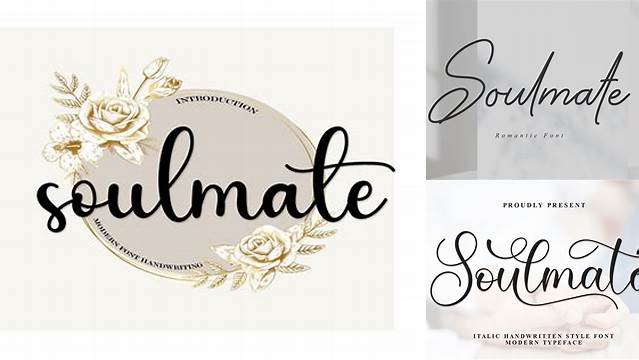
Find Your Soulmate Font: Copy & Paste Magic!
Hey everyone! Ever wished you could express your feelings about your soulmate in a way that's totally unique and eye-catching? Well, you're in luck! This article is all about finding the perfect font to represent your soulmate, and how easy it is to copy and paste those fonts wherever you need them. We'll dive into a bunch of cool font styles, show you how to snag them, and give you some fun ideas on how to use them. Let's get started on this font-tastic journey! We'll be exploring how to find fonts for soulmate using copy and paste, so get ready to make your messages extra special.
H2: Discovering Soulmate Fonts: A World of Typography
Alright, guys, let's get down to the nitty-gritty: finding the perfect font to represent your soulmate. It's not just about picking any old font; it's about finding one that captures the essence of your connection, your love, and your unique bond. Think about it: your soulmate is one of a kind, right? So your font should be too! We're talking about fonts that speak volumes, fonts that whisper sweet nothings, and fonts that shout out your love from the rooftops. There's a whole world of typography out there, and the possibilities are endless. You can find fonts that are romantic, playful, serious, or even a little bit quirky – whatever best reflects your relationship. We'll explore different font categories, from elegant scripts that evoke classic romance to bold, modern fonts that scream contemporary love. We'll also look at fonts that are a bit more whimsical and fun, because, let's face it, love should be fun too! The key is to find a font that resonates with you and your partner. When you see it, you'll know it's the one! It's like finding your soulmate all over again, but this time it's in the world of typography. We will give you a glimpse of some popular fonts that you can use right away.
This includes fonts such as script fonts that are cursive and flowery, reminiscent of a handwritten letter. They're perfect for adding a touch of romance and elegance to any message. Then there are serif fonts, which are classic and timeless, and they look sophisticated and dependable. These are perfect for creating a sense of tradition and trust. We then have sans-serif fonts that are modern and clean, and great for creating a contemporary look. If your relationship is more modern, this is what you may need. Finally, there are display fonts, designed to grab attention. These fonts are often used for headings and titles and offer a variety of styles from cute to dramatic. So, as you can see, there's a font for every kind of soulmate connection. Let's start looking for yours!
H2: Soulmate Fonts for Social Media: Make Your Posts Pop
Alright, let's talk social media! Social media is a fantastic platform to share your love with your soulmate, and what better way to do it than with a unique font? Let’s be honest, everyone is looking for a way to stand out from the crowd. And using the perfect font can do exactly that! Instagram, Facebook, Twitter – you name it, the power of a well-chosen font is undeniable. Imagine posting a sweet message to your significant other and seeing it in a cool, stylized font. How unique is that! It’s not only about looking good; it's also about expressing your love. You can use unique fonts to create eye-catching captions, bios, and even personalized stories. Think about it: you can use a romantic script font for a heartfelt anniversary post, a playful font for a funny inside joke, or a bold font for a passionate declaration of love. The possibilities are endless! But here is the best part: it's easy to copy and paste your selected font to your social media posts. It adds a personal touch that standard fonts just can't match. To make it even better, you can also use different font styles to emphasize certain words or phrases in your message. Bold the words that mean the most, or use italics to add a touch of flair. You can also change colors to further elevate your post. To do so, copy the stylized text generated from your tool and paste it directly into your post. That’s all it takes! Then sit back and watch the love and likes roll in!
H2: Romantic Font Pairings for Soulmate Messages
Let’s move on, guys, to the magic of pairing fonts! Choosing the right font can elevate your soulmate messages to a whole new level. It's like picking the perfect outfit for a date – you want something that complements each other and makes a statement. Now, when it comes to romantic messages, the art of font pairing is all about balance and harmony. You want to find fonts that work together, complementing each other and enhancing the overall aesthetic. One of the most popular and effective pairings is a script font with a sans-serif font. The script font brings a touch of elegance and romance, while the sans-serif font offers a clean and modern contrast. It's like the yin and yang of typography. For example, you can pair a beautiful, flowing script font for your soulmate's name with a clean, simple sans-serif font for the rest of your message. Or, you could try pairing a bold, playful font with a more subtle, elegant font. The key is to experiment and see what looks best. Remember, the goal is to create a cohesive and visually appealing message that captures the essence of your love. The best way to find the perfect pairing is to try different combinations and see how they look together. There are lots of websites and tools that offer font pairing suggestions, so you don't have to start from scratch. So, go ahead and start exploring! Your soulmate deserves a perfectly crafted message, so start by finding the perfect font pairing.
H2: Creative Uses of Soulmate Fonts Beyond Texting
Alright, guys, let's think outside the box. While using special fonts to text your soulmate is great, you can actually use them in so many more creative ways! When it comes to expressing your love, the possibilities are endless. Think about it, you can get creative with cards, gifts, and even DIY projects! How about creating personalized greeting cards for anniversaries, birthdays, or just because? You can use a beautiful script font to write heartfelt messages or quotes. The same goes for gift tags. Imagine how special a gift becomes when the tag is written in a unique font that reflects your relationship. You can also create artwork! You can design custom wall art, posters, or even digital graphics featuring your favorite quotes, names, or dates. The font you use will add a unique, personal touch that makes it truly special. If you like DIY projects, consider using your chosen font to personalize items like mugs, t-shirts, or phone cases. You can also use it to create custom stickers or labels for your shared belongings. So, as you can see, the possibilities extend far beyond simple texting. With a little creativity, you can use these fonts to express your love in so many unique and memorable ways. Your soulmate will definitely appreciate the extra effort you put into expressing your love, and these creative ideas will make your relationship even more special!
H2: Choosing the Right Font: Matching Style to Sentiment
Now, this is important, guys! Matching your font to your soulmate's sentiment is key. When it comes to expressing your love, the right font can make all the difference. It's about finding a style that perfectly reflects your relationship and the message you want to convey. Think about it: a delicate, romantic script font is perfect for expressing your deep feelings and writing love letters. On the other hand, a bold, modern font might be more suitable for a fun and playful message or inside joke. Here are some things to consider: first, think about the tone of your message. Is it romantic, playful, serious, or funny? Choose a font that matches the tone and emotions you're trying to convey. Also, consider your soulmate's personality. Are they romantic and traditional, or modern and quirky? Choose a font that aligns with their style and preferences. Thirdly, think about the context of your message. Is it for a special occasion or a casual conversation? Use the font according to the occasion! Also, when in doubt, choose a font that is easy to read. This will ensure that your message is clear and your feelings are well understood. So, consider all of these things before you select your font. The right font will not only make your message look good but also enhance the emotional impact, making it even more special and meaningful!
H2: Free Font Resources for Soulmate Messages
Alright, so you want to start this font-tastic journey, but you don't want to break the bank? No problem, guys! There are tons of free resources available online where you can find amazing fonts for your soulmate messages. Whether you are looking for romantic scripts, modern sans-serifs, or anything in between, you'll find something that fits your needs. One of the most popular places to start is Google Fonts. It offers a vast library of free fonts that are all available for personal and commercial use. Then there is also Font Squirrel, which curates a collection of high-quality, free fonts. If you want to explore a different type of fonts, try DaFont, which is another popular site with a huge selection of free fonts. Just make sure to check the license before using any font! Also, don't forget to search for font generators. There are tons of sites that not only let you copy and paste your text in different fonts but also offer a preview of how it will look. Many of them are free. Some of the best sites include CoolFont and Lingojam. Before downloading, always read the license to check if it's free for personal use, or commercial use, or both. It will help you make sure you are respecting the font designers. So get ready to start searching! These resources are a great way to find beautiful fonts without spending a dime. Happy font hunting, guys!
H2: Conclusion: Expressing Love with Soulmate Fonts
Guys, we've covered a lot, haven't we? Choosing a font to express your feelings to your soulmate is not just about picking a pretty style. It’s about creating a unique experience. By now, you should have a good understanding of different fonts, and how to copy and paste them! You have learned the best resources to find the right fonts, and the different ways you can use them. Remember, there are lots of ways to make your message unique. You can personalize your messages by using fonts that represent your relationship. You can also combine fonts, and emojis to make the message stand out! Most of all, have fun! This is the most important step, in making your messages special. By using the right font, you can create a message that is as unique as your love. Now go and start expressing your love with these amazing fonts, and create unforgettable moments for your soulmate! Your soulmate will definitely appreciate the effort, and the message will be even more meaningful.